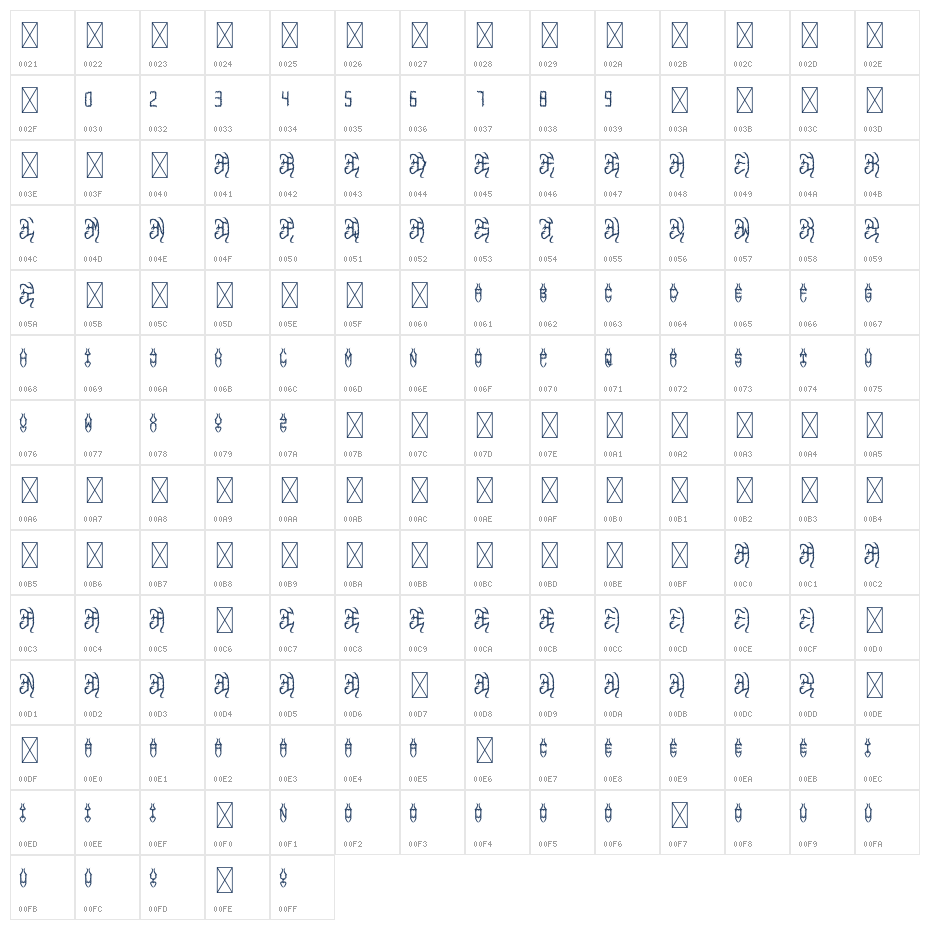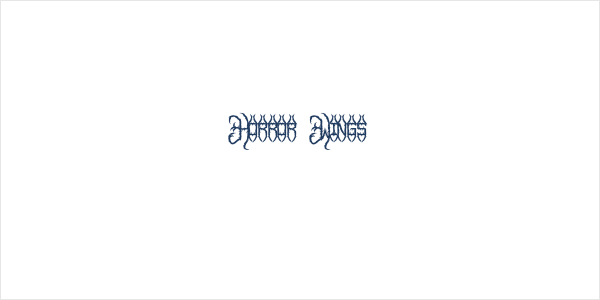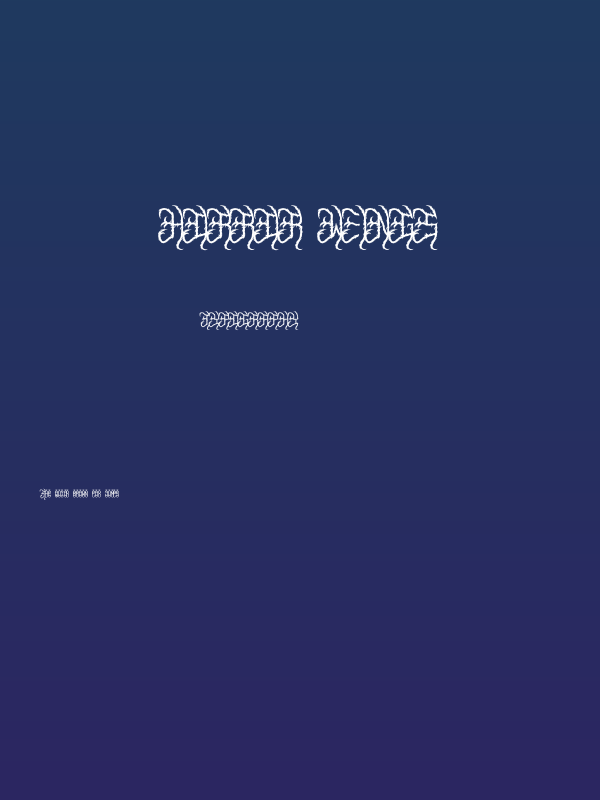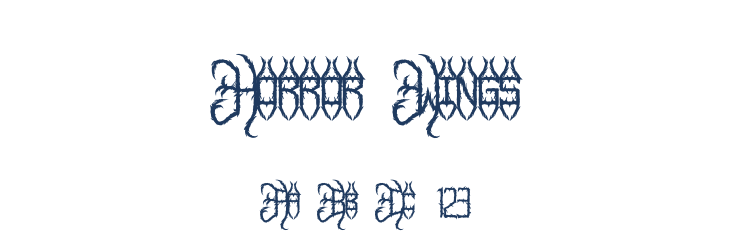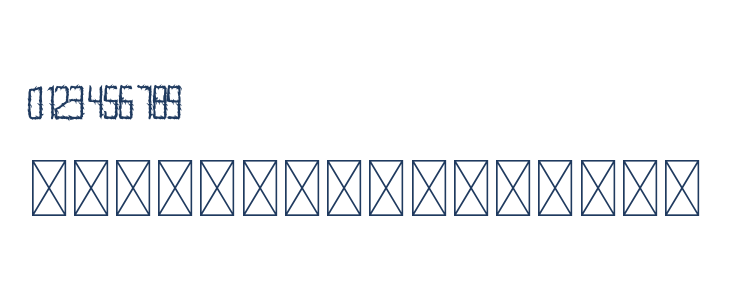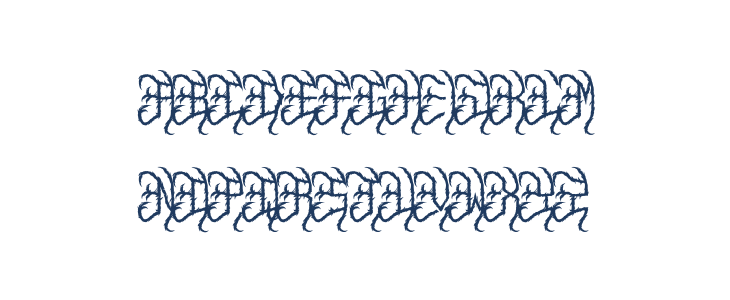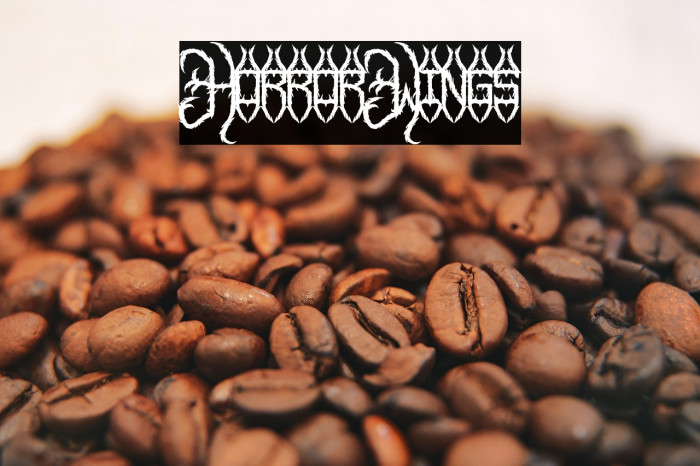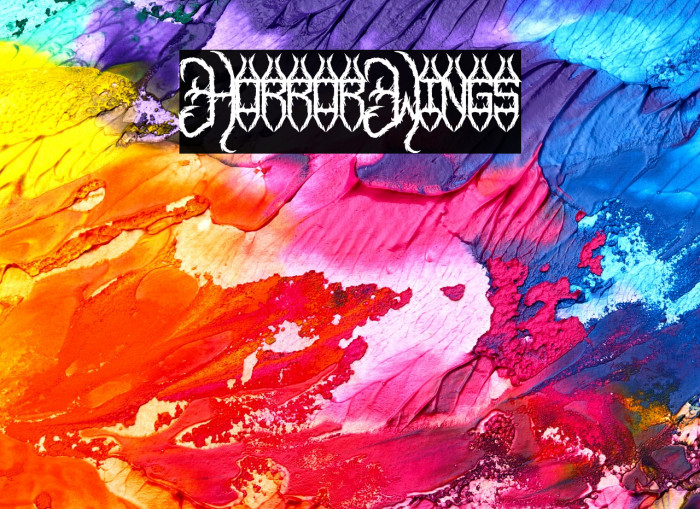
Horror Wings Font
Horror Wings Description
Decorative, intricate, and ornate font with a gothic or medieval style, featuring detailed line work and embellishments.
| Overall Style | Gothic, Medieval, Ornate |
| Use Case | Logos, Titles, Decorative headings |